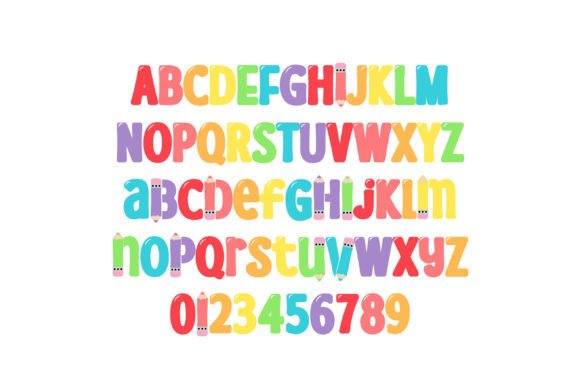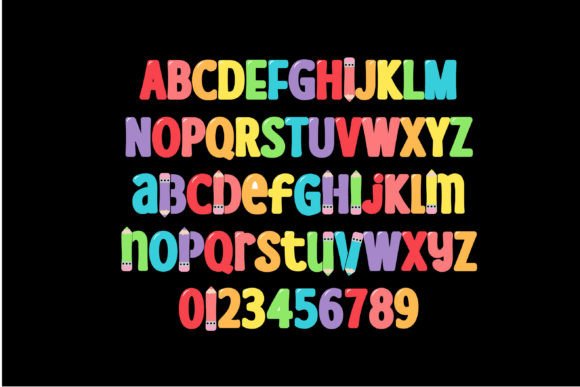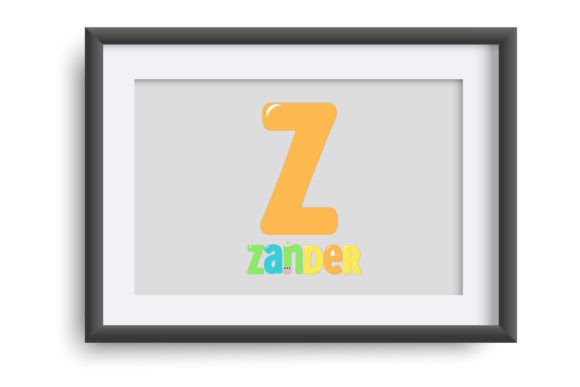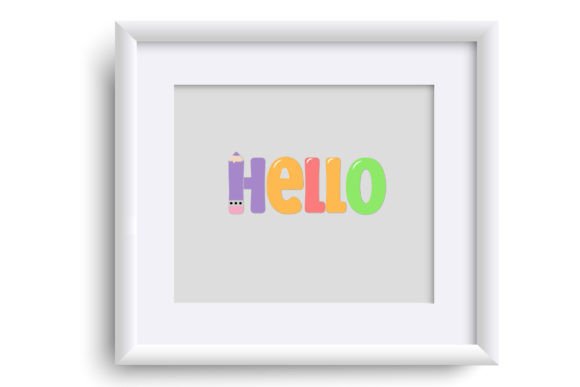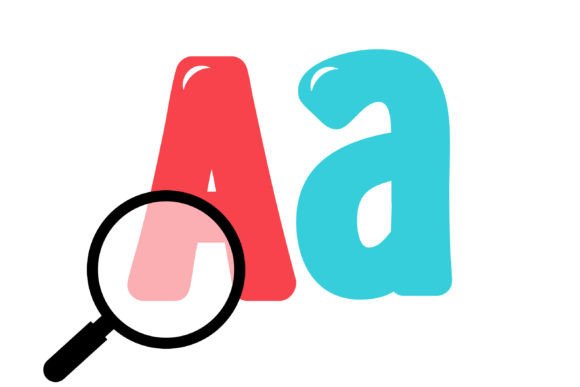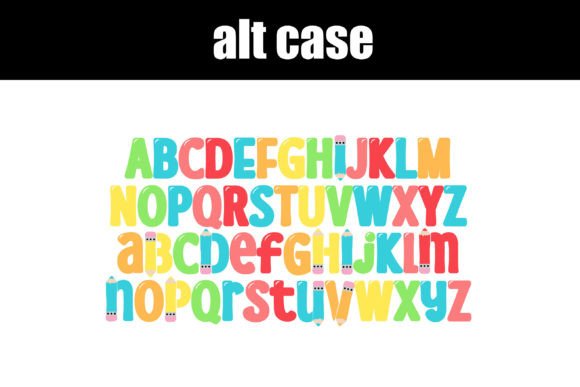
Introduction to Mccolor Pencil Font
Have you ever been working on a creative project and felt like something was missing? Maybe you’re designing a child’s book or creating a social media campaign for a kids’ brand, and you want to add that extra special touch. That’s where the Mccolor Pencil Font comes in – a full-color, high-quality font that’s sure to bring a smile to your face and a burst of creativity to your design.
This delightful font features youthful, “crayon-inspired” lettering in a range of pretty spring and pastel colors, making it the perfect design resource for any project that needs a playful touch. And the best part? It’s available for free download, so you can start using it right away in your creative projects.
Whether you’re a seasoned designer or just starting out, the Mccolor Pencil Font is a valuable addition to your design toolkit. With its transparent background and versatile color options, you’ll be able to add a pop of color to your designs with ease – and that’s exactly what this font is all about.
Key Features of Mccolor Pencil Font
- High-quality design with a unique, hand-drawn style, perfect for creative projects.
- Comes with a transparent background, allowing for easy integration into various design elements.
- Designed with a high resolution of 300 DPI, ensuring crisp and clear text output.
- Features a unique, playful aesthetic, ideal for children’s books, educational materials, and other creative projects.
Honest Review: Mccolor Pencil Font
I recently had the chance to work with the Mccolor Pencil Font, and I’m excited to share my thoughts with you. Overall, I found it to be a high quality design resource that’s perfect for creative projects.
Here’s what works well: ✨ Unique character set – The Mccolor Pencil Font comes with a wide range of characters, including uppercase and lowercase letters, numbers, and even some fun symbols. This makes it ideal for projects that require a lot of text, like book covers or magazine layouts.
- Transparent background – This font has a beautiful, transparent background that makes it easy to customize and pair with other design elements.
However, I did encounter some limitations: ⚠️ Limited font sizes – While the Mccolor Pencil Font is beautiful at larger font sizes, it can become pixelated at smaller sizes, which may not be ideal for certain projects.
Overall, I’m really impressed with the Mccolor Pencil Font. Its unique character set, free download, and transparent background make it a great addition to any designer’s toolkit. Just be mindful of the font size limitations, and you’ll be all set for your next creative project.